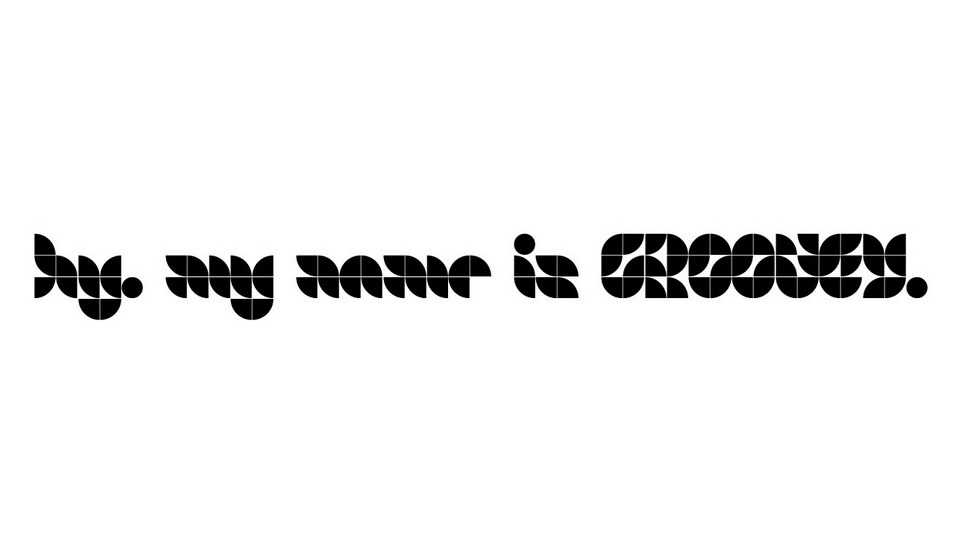
Download Groovey font, a bold, modular, geometric display typeface based on circular shapes. Groovey works best in display applications, such as posters and titles.